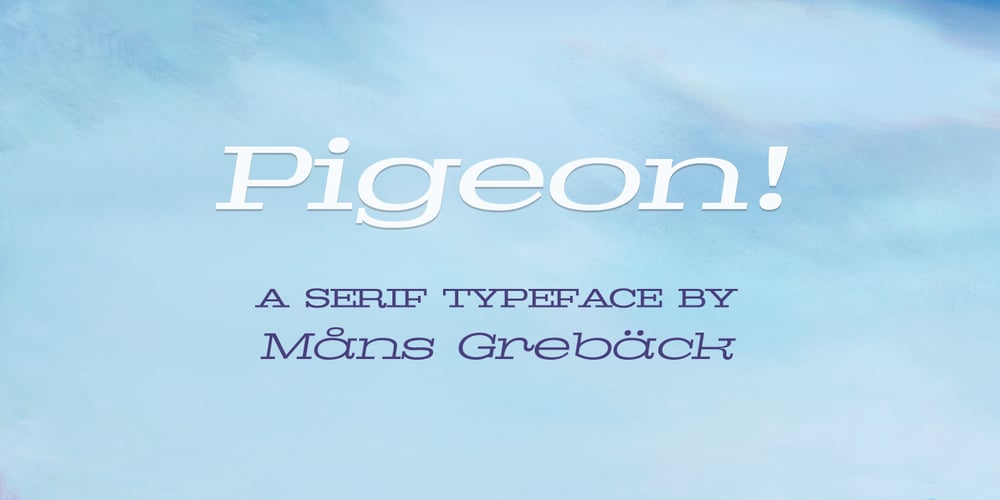
Pigeon Font Family was designed by Måns Grebäck and published by Mans Greback. Pigeon contains 11 styles and family package options. Pigeon is a high-quality serif font in six styles. It comes in the weights Pigeon Light, Pigeon Medium and Pigeon Bold; each of the weights as Italic. The typeface is created by Måns Grebäck, contains hundreds of glyphs and multiple ligatures. Its wide characters are perfect to draw attention, and they have smooth and well-designed curvatures.